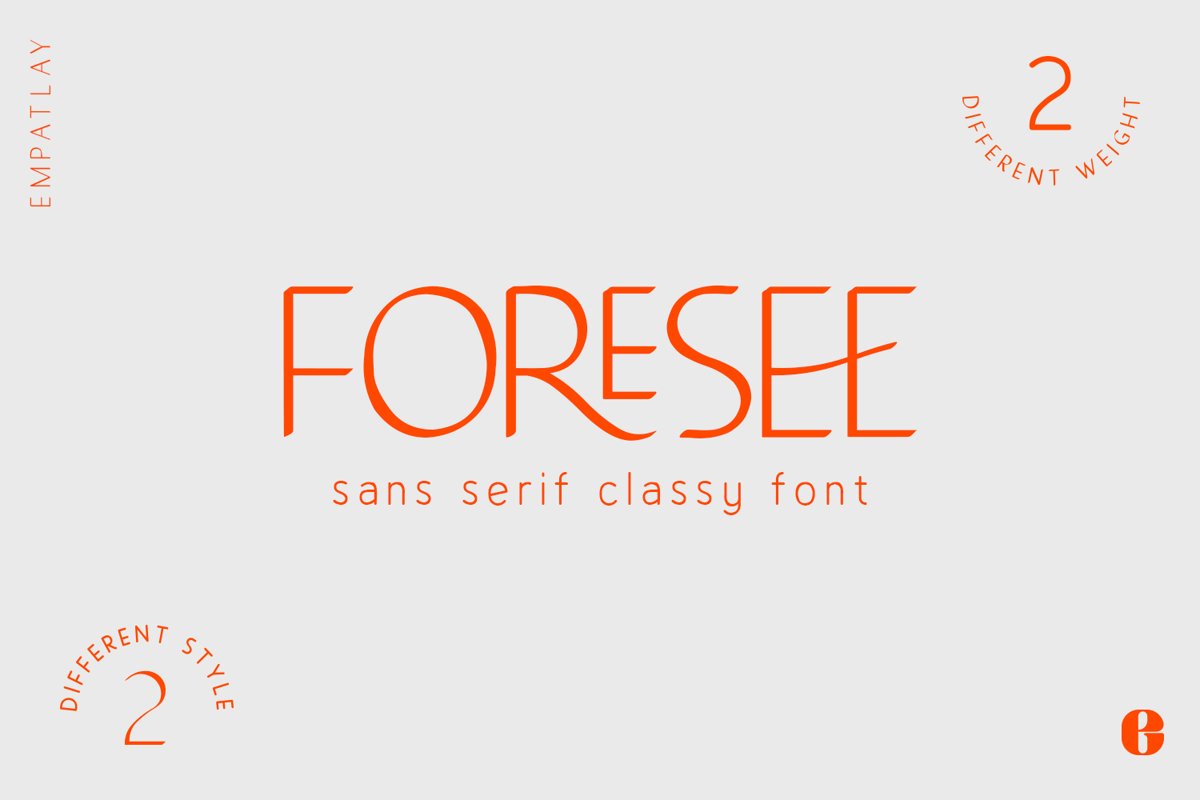
Foresee | Sans Serif Classy Font
Foresee is a elegant and classy serif font with various ligatures suitable.
Foresee great for Poster, Social Media Deaign, Magazine, Fashion, etc.